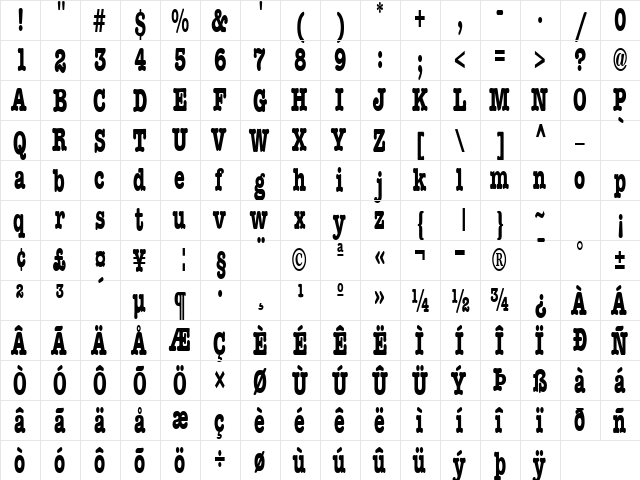
BocciText13 Regular
Design Context for BocciText13 Typeface
BocciText13 offers clean, dependable letterforms without strong stylistic allegiance, making it a practical choice for designers who need flexibility.